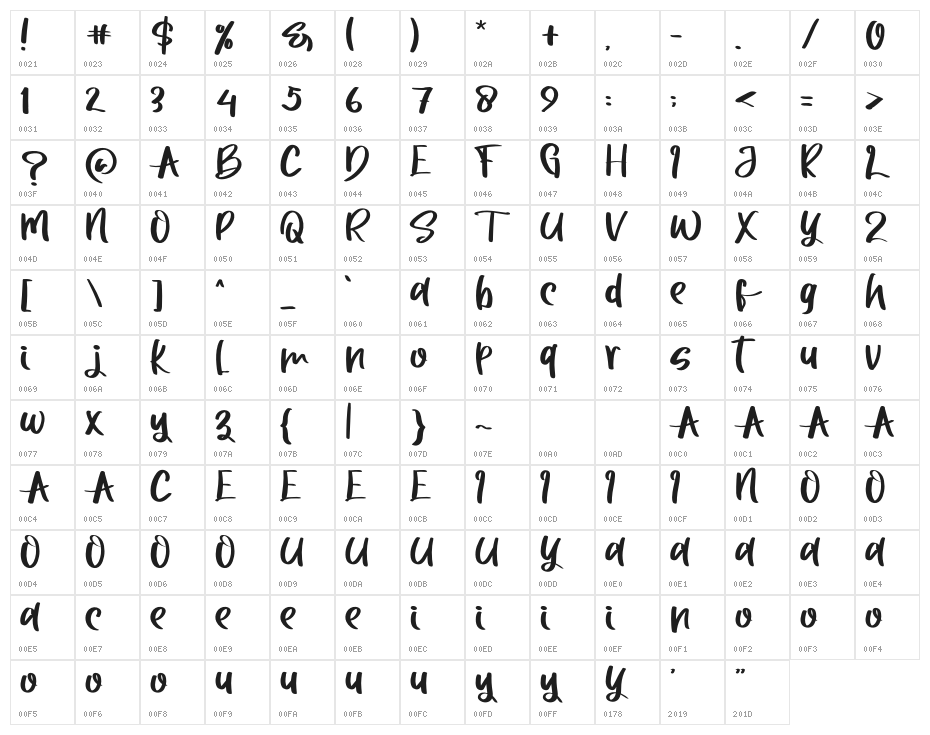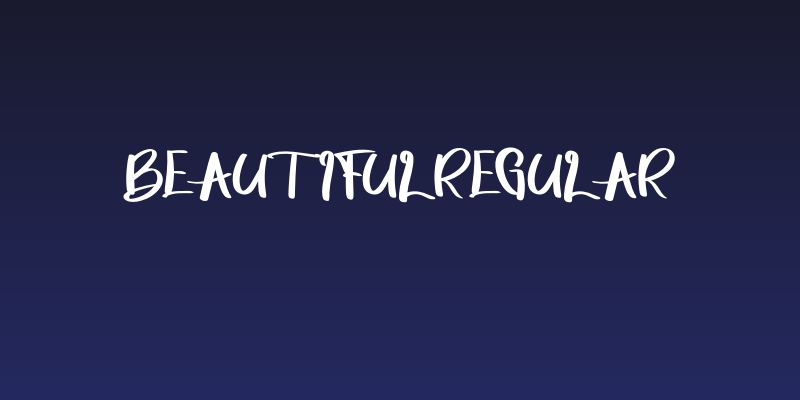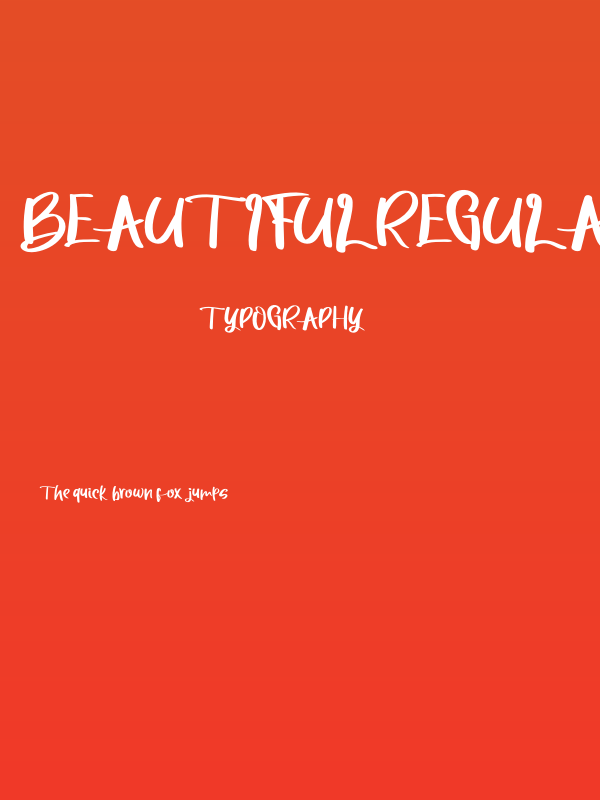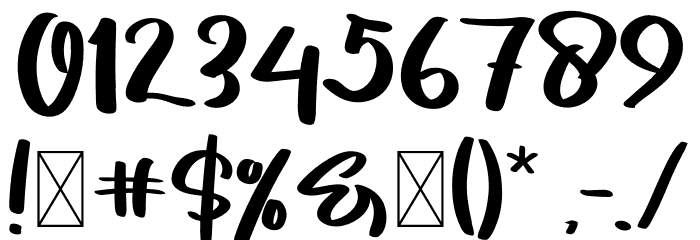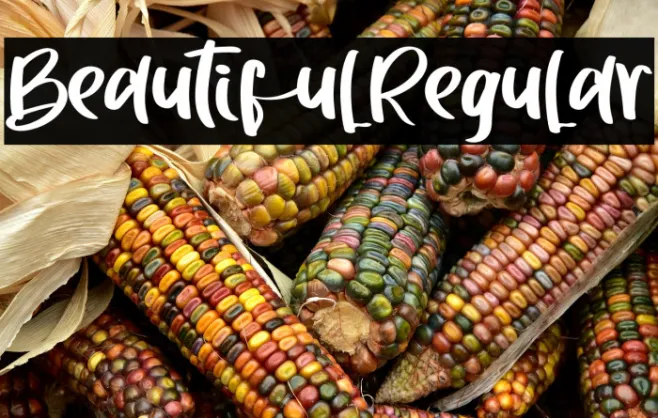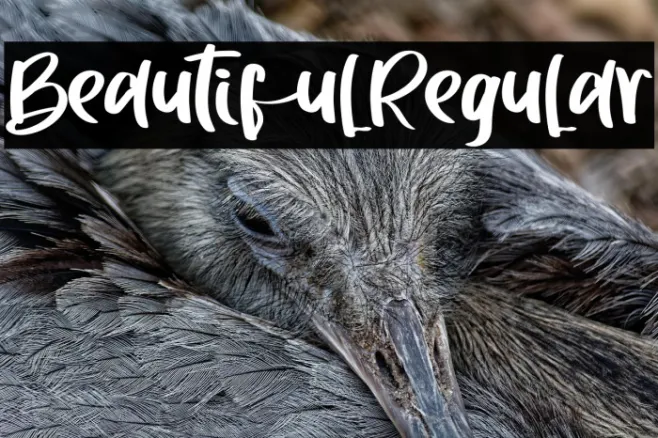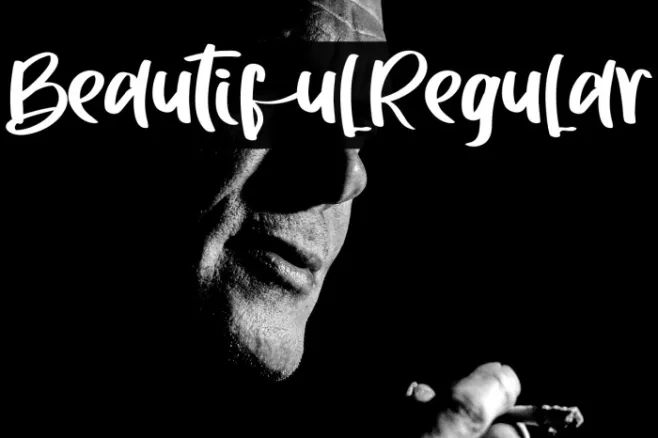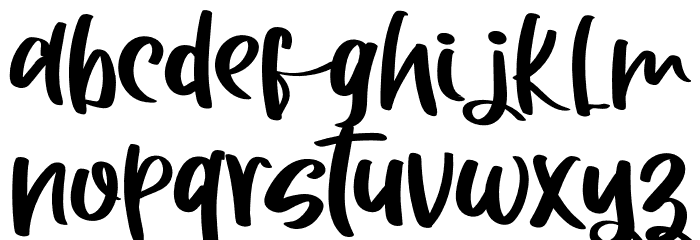
BeautifulRegular Font
BeautifulRegular Description
This font exudes a playful and energetic vibe with its bold, brush-like strokes and fluid, hand-drawn appearance. The characters are slightly slanted, giving a sense of movement and dynamism. The uppercase letters are tall and expressive, while the lowercase letters maintain a consistent flow, enhancing readability. The numerals and special characters are equally bold, maintaining the overall aesthetic. This font is perfect for projects that require a personal touch or a creative flair.
| Proposed Projects | Ideal for greeting cards, posters, branding, and social media graphics where a lively and personal touch is desired. |